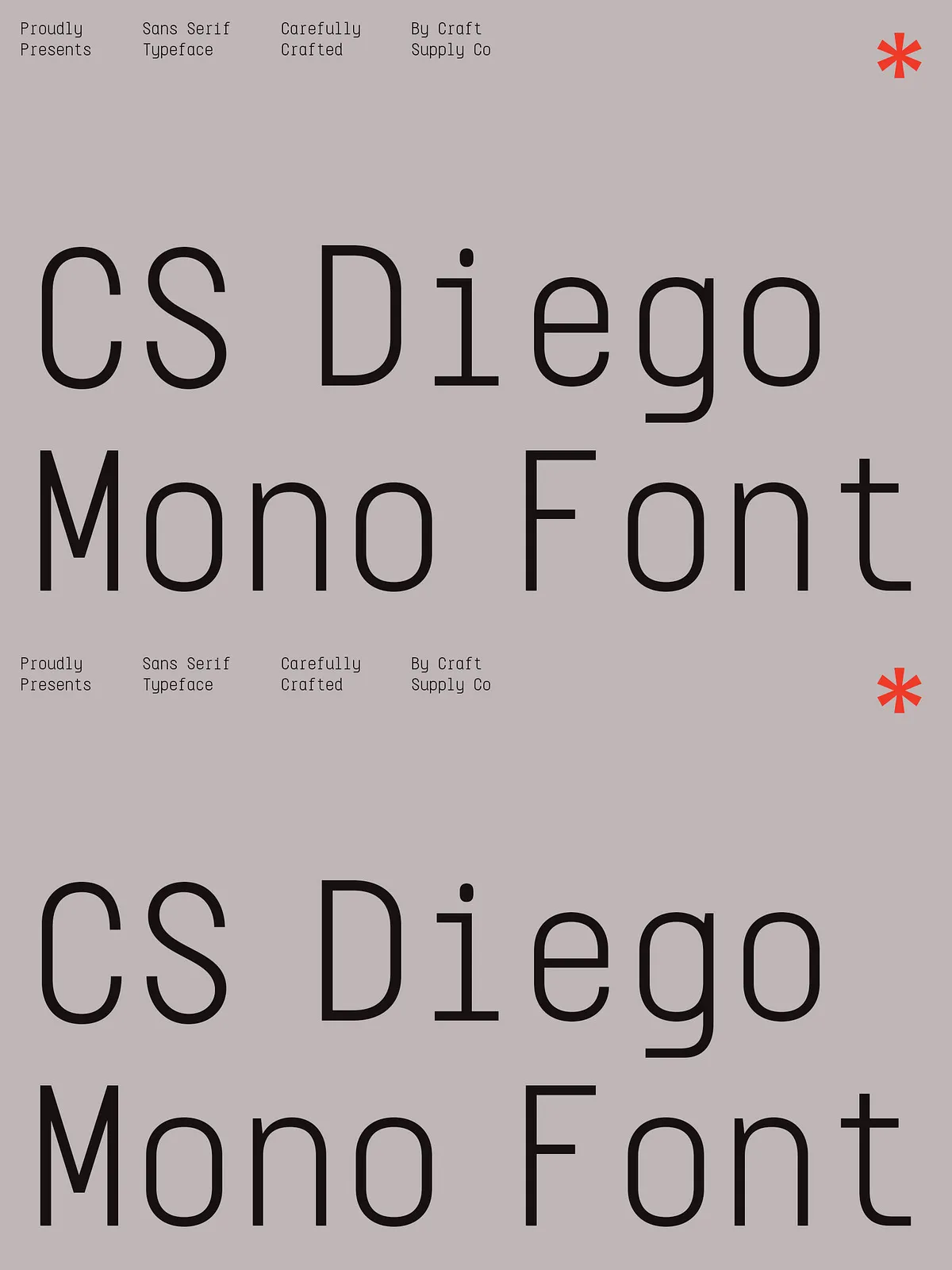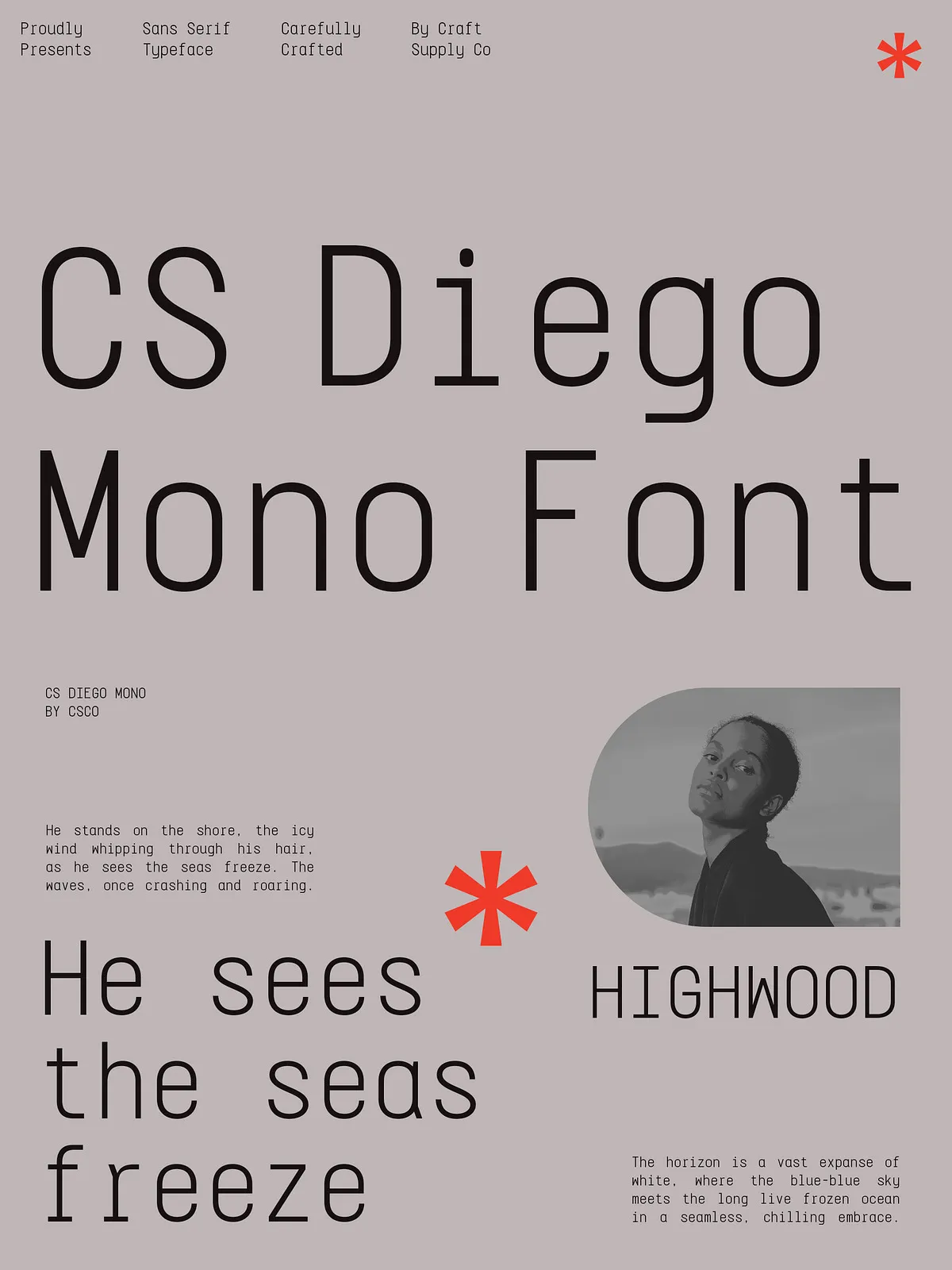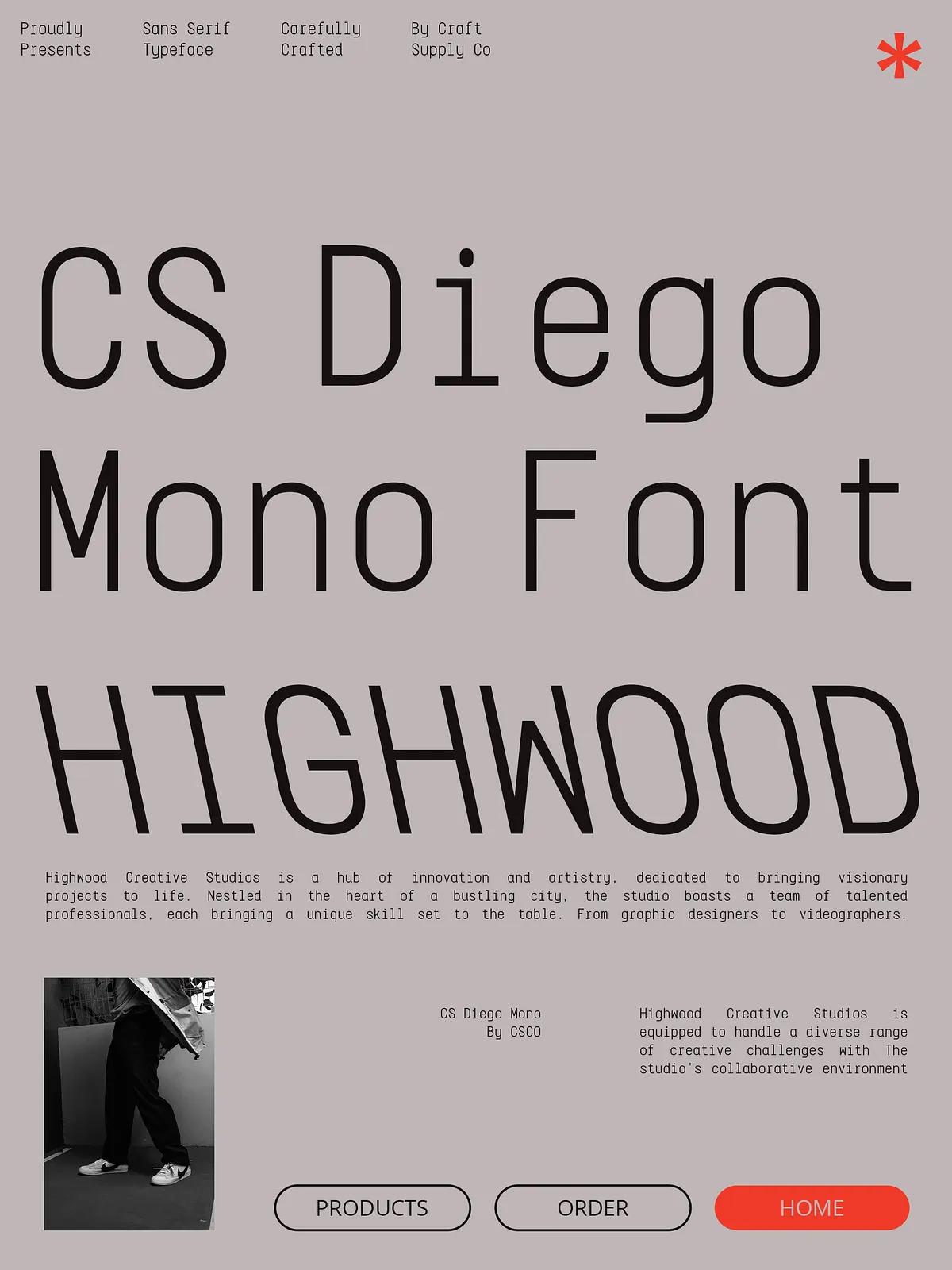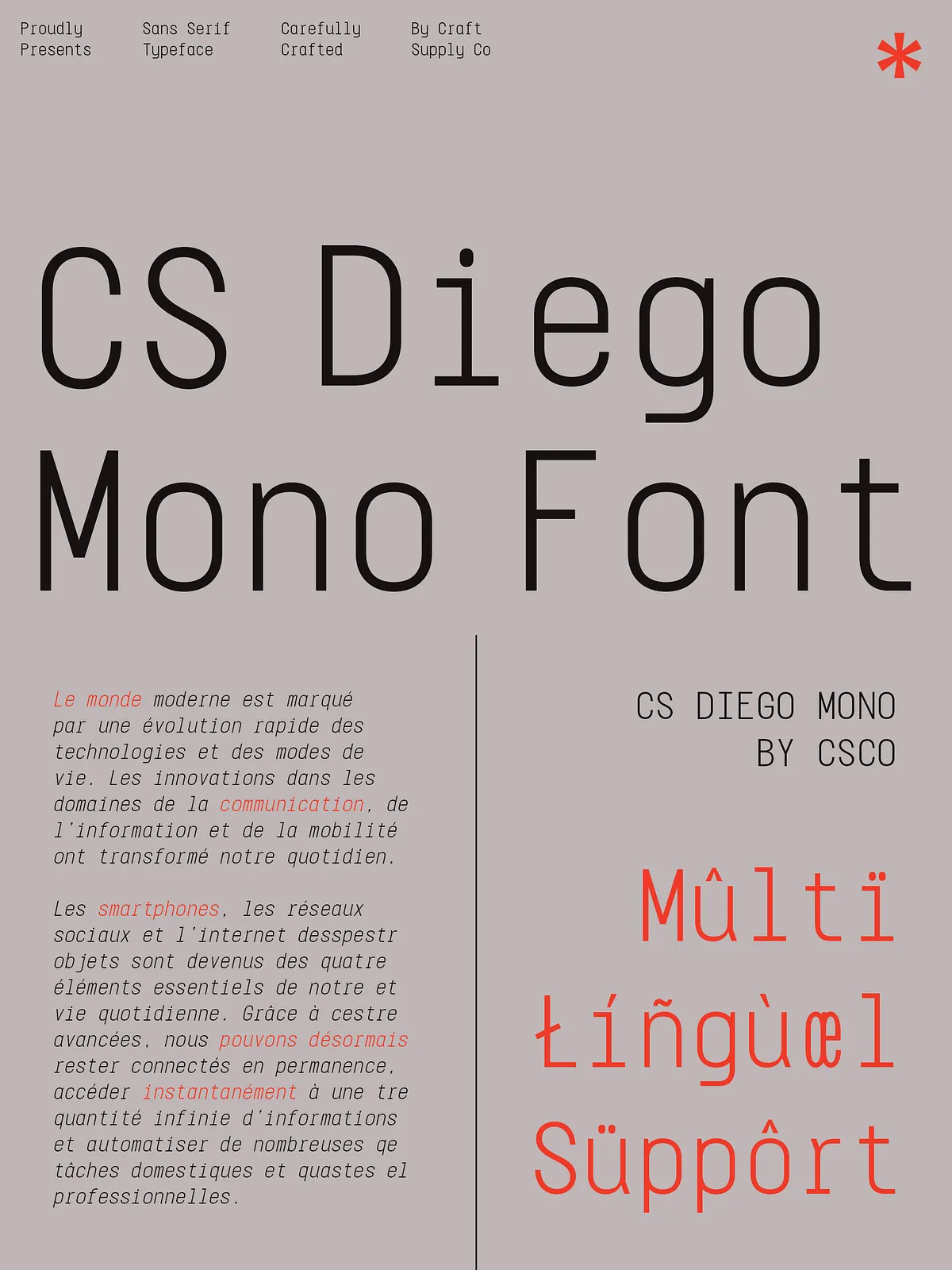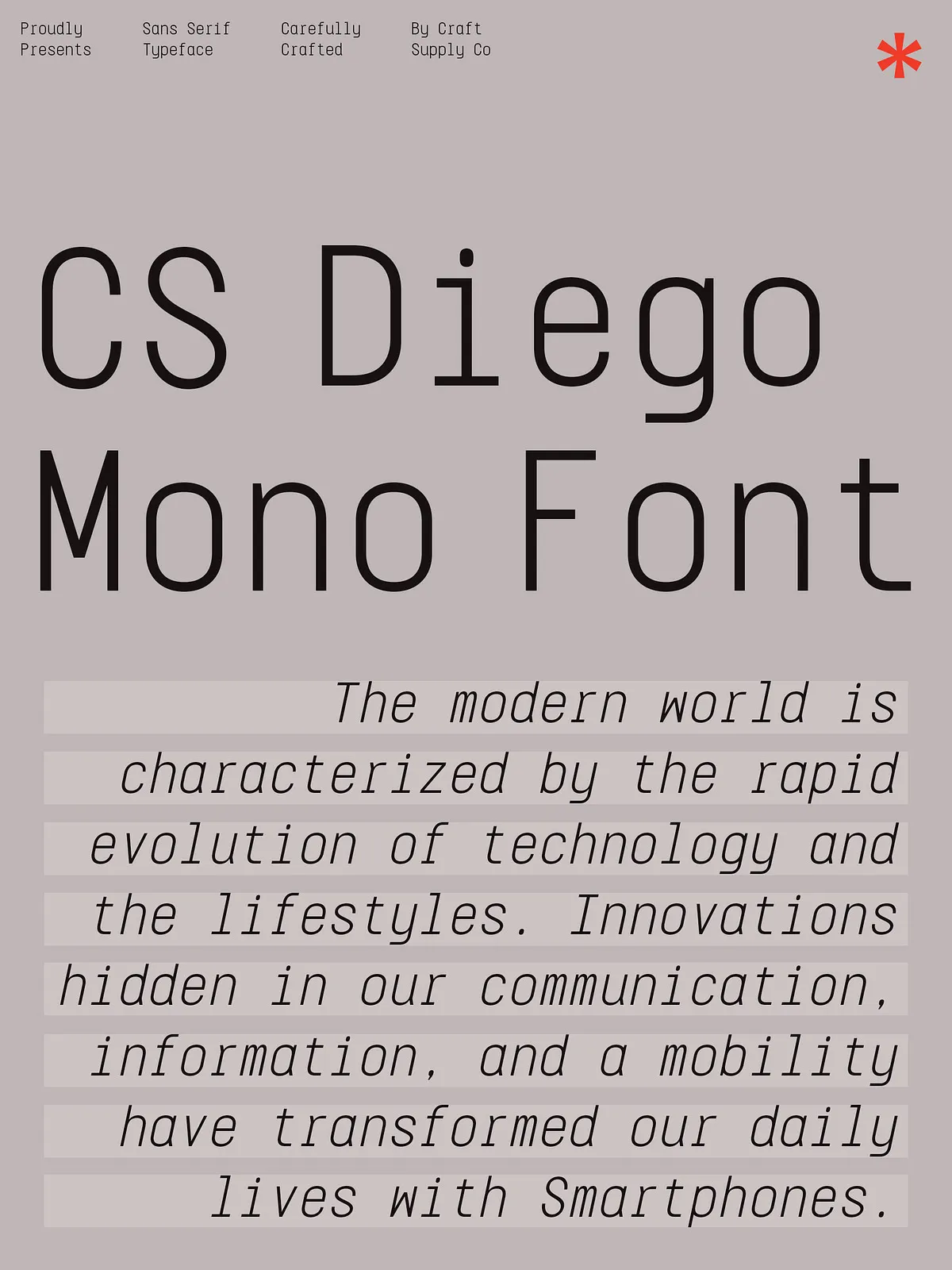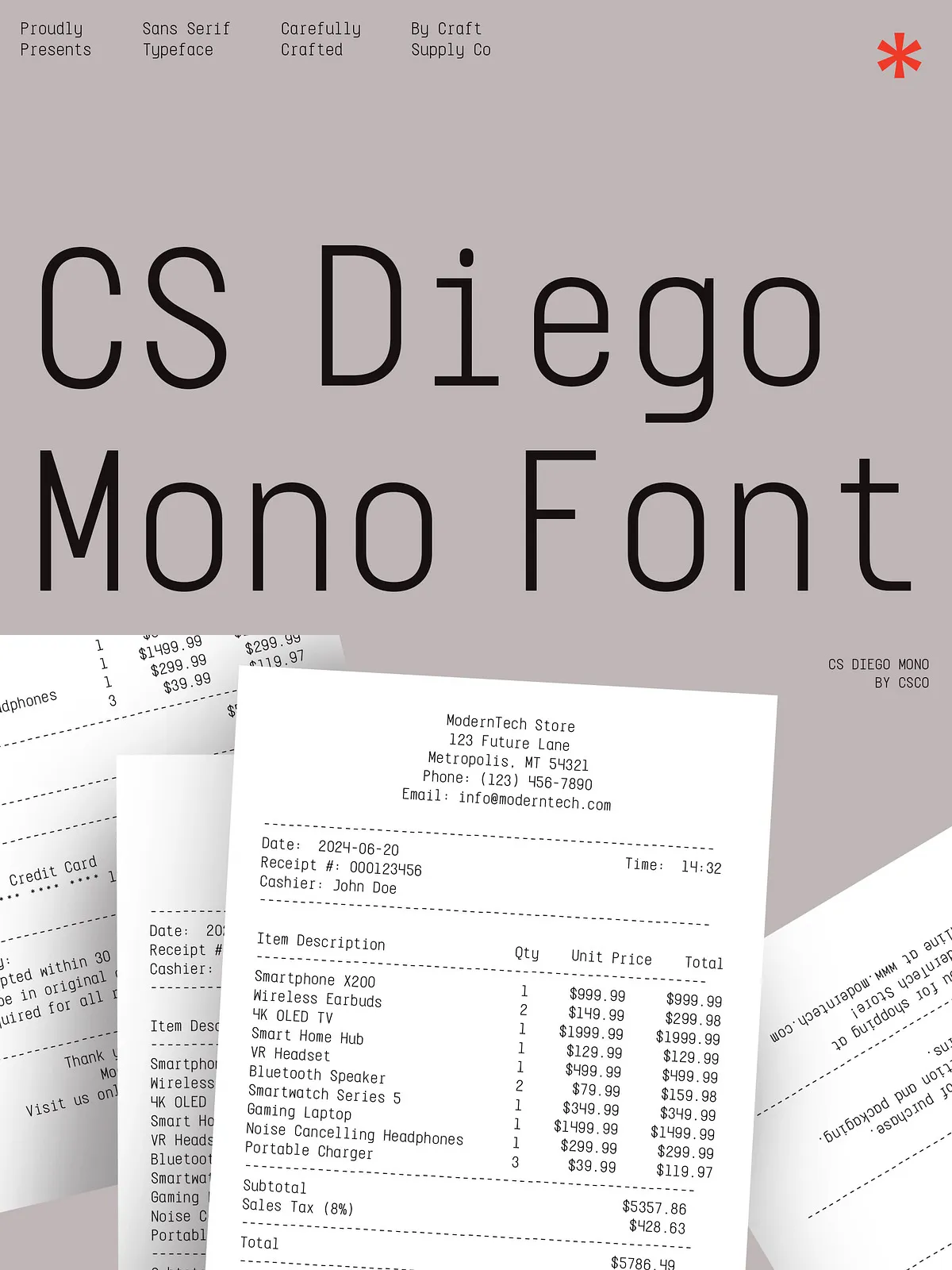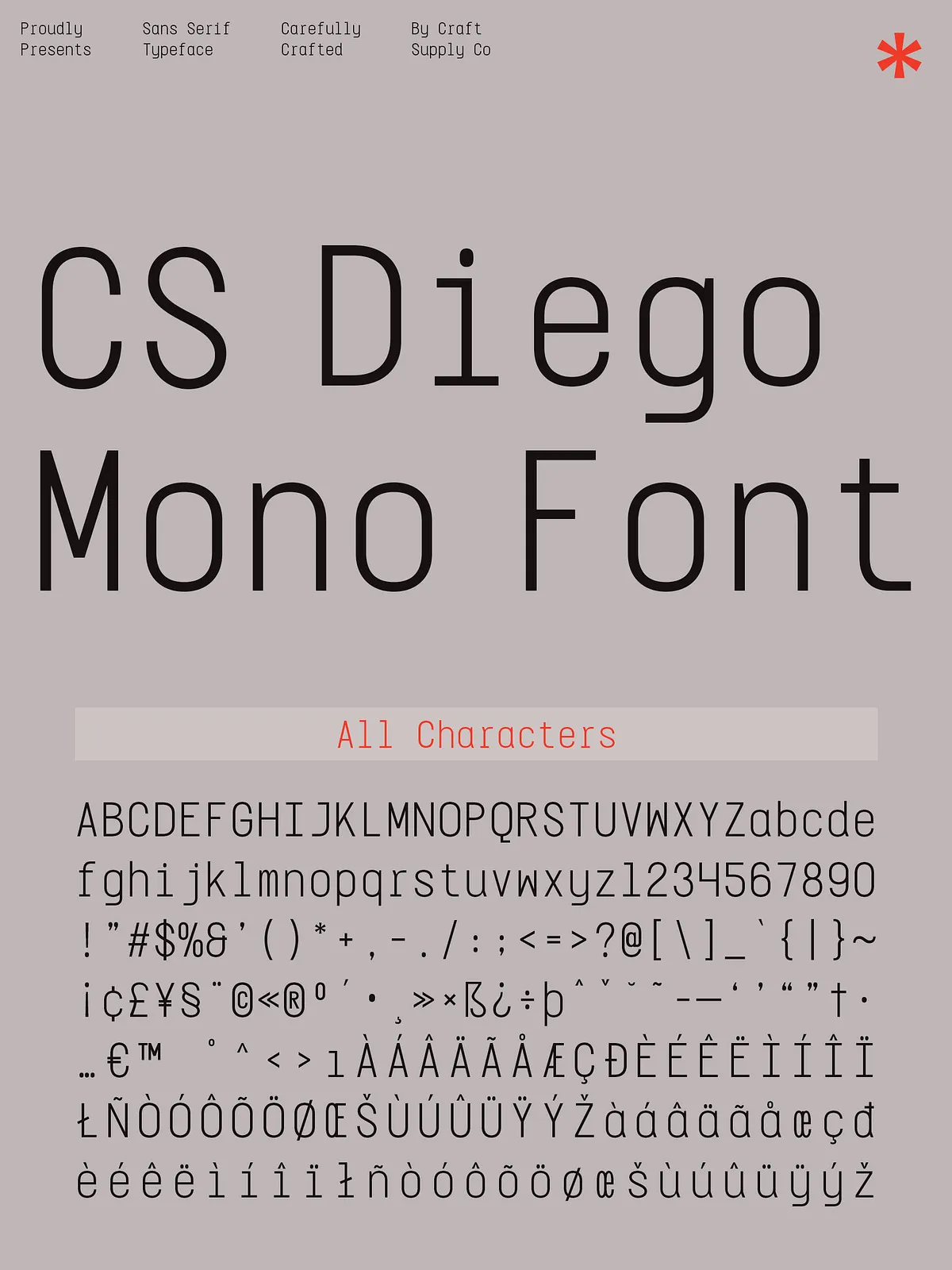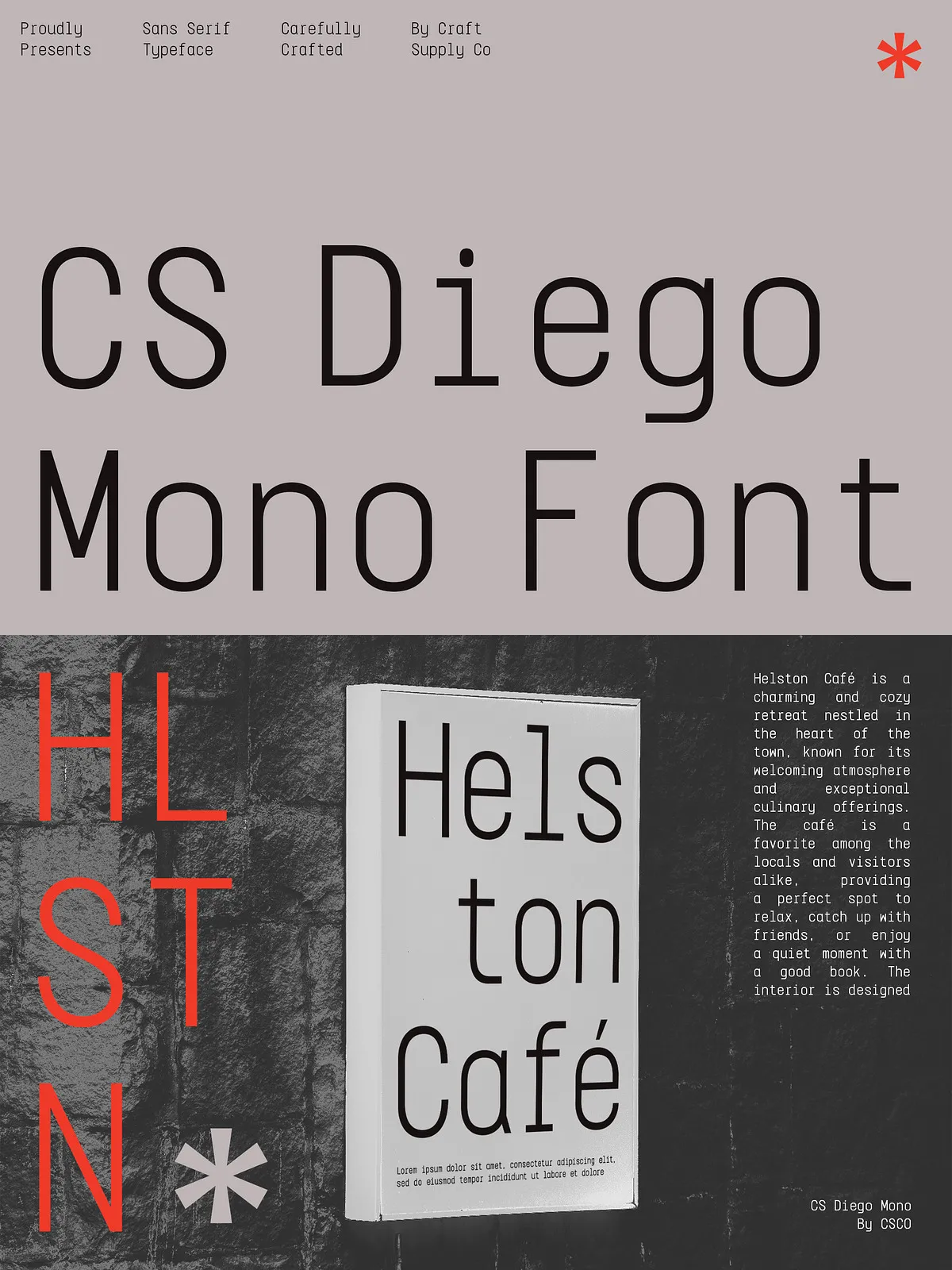
CS Diego Mono – Sans Serif Typeface
CS Diego Mono delivers a focused, modern monospace sans-serif crafted to maximize legibility and alignment in technical contexts. The design enforces consistent character widths so developers, technical writers, and interface designers can present code, tables, and tabular data with clear, predictable spacing. CS Diego Mono balances mechanical precision with human readability to serve both programming environments and contemporary brand applications.
Core Features
Monospace consistency
Every glyph in CS Diego Mono occupies the same horizontal space, which preserves column alignment and improves line-by-line comparison in source code and logs. This fixed-pitch approach helps readers scan code, detect mismatched indentation, and compare characters visually without distraction.
Clean sans-serif aesthetics
The sans-serif construction removes ornamental terminals and prioritizes simple, open shapes. CS Diego Mono uses neutral stroke contrasts and clear counters to maintain clarity at small sizes and on low-resolution displays. Designers will find the typeface approachable for both UI labeling and printed technical documentation.
Styles and variants included
This family ships with three core fonts to support diverse typographic needs:
• CS Diego Mono Regular — the primary workhorse for code blocks and body text.
• CS Diego Mono Italic — used for emphasis, comments, and inline annotations.
• CS Diego Mono ReverseItalic — a stylistic complement that provides a distinct slanted voice for special states or branding treatments.
Technical Details
Character support and encoding
CS Diego Mono includes uppercase and lowercase alphabets, numerals, standard punctuation, and accented characters for multilingual text. The family provides PUA (Private Use Area) encoding to grant designers easy access to discretionary glyphs and alternate characters via typical font tools.
OpenType and application compatibility
Built with modern font production practices, CS Diego Mono supports standard OpenType features commonly used in development editors and advanced layout apps. While the font performs reliably in web, desktop, and UI environments, testers should confirm behavior in legacy systems that lack full OpenType or PUA support.
Practical Applications
Where CS Diego Mono excels
Use CS Diego Mono for code editors, documentation sites, technical blogs, terminal emulators, and developer-facing dashboards. The face also works well in UI components such as buttons, form fields, and tables where fixed-width alignment improves usability. Beyond technical contexts, CS Diego Mono can lend a contemporary, utilitarian tone to branding, packaging, and editorial projects that require a structured, readable voice.
Usage Tips
Optimizing legibility
• Set line-height slightly larger than default to improve vertical rhythm in code blocks and reduce crowding.
• Use the Italic style for comments, citations, or to visually separate inline notes from core content.
• Pair CS Diego Mono with a neutral sans-serif for UI body text to maintain visual harmony while preserving the monospace sections’ clarity.
Background on Monospace Fonts
Why monospace matters
Monospace typefaces serve a unique role in computing and design by enforcing uniform glyph widths.